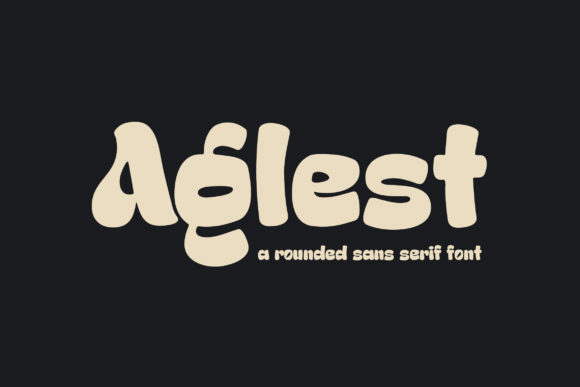
Step into the world of Aglest Font, a display font that commands attention with its bold, solid strokes and retro charm. Inspired by classic metal logos, Aglest is a font that exudes strength, power, and a touch of nostalgia.
With Aglest, you can craft designs that resonate with the raw energy of rock and roll, the timeless appeal of vintage signage, or the modern edge of urban street art. Unleash your creativity and let Aglest become your tool for creating unforgettable visual experiences.
Aglest's thick letters stand tall and proud, making it an ideal choice for headlines, posters, logos, and branding materials. Its retro style adds a touch of authenticity and heritage to your designs, evoking the memories of classic rock albums and vintage advertising.
But Aglest is not just limited to bold and powerful statements. Its versatility extends to crafting designs with a playful and humorous twist. The font's solid strokes and retro charm bring a smile to your face, making it perfect for creating eye-catching social media posts, quirky invitations, or fun product packaging.
With Aglest, you have a font that adapts to your creative vision effortlessly. Whether you're designing for print or digital, Aglest's crisp and clean lines ensure that your designs look sharp and professional on any platform.